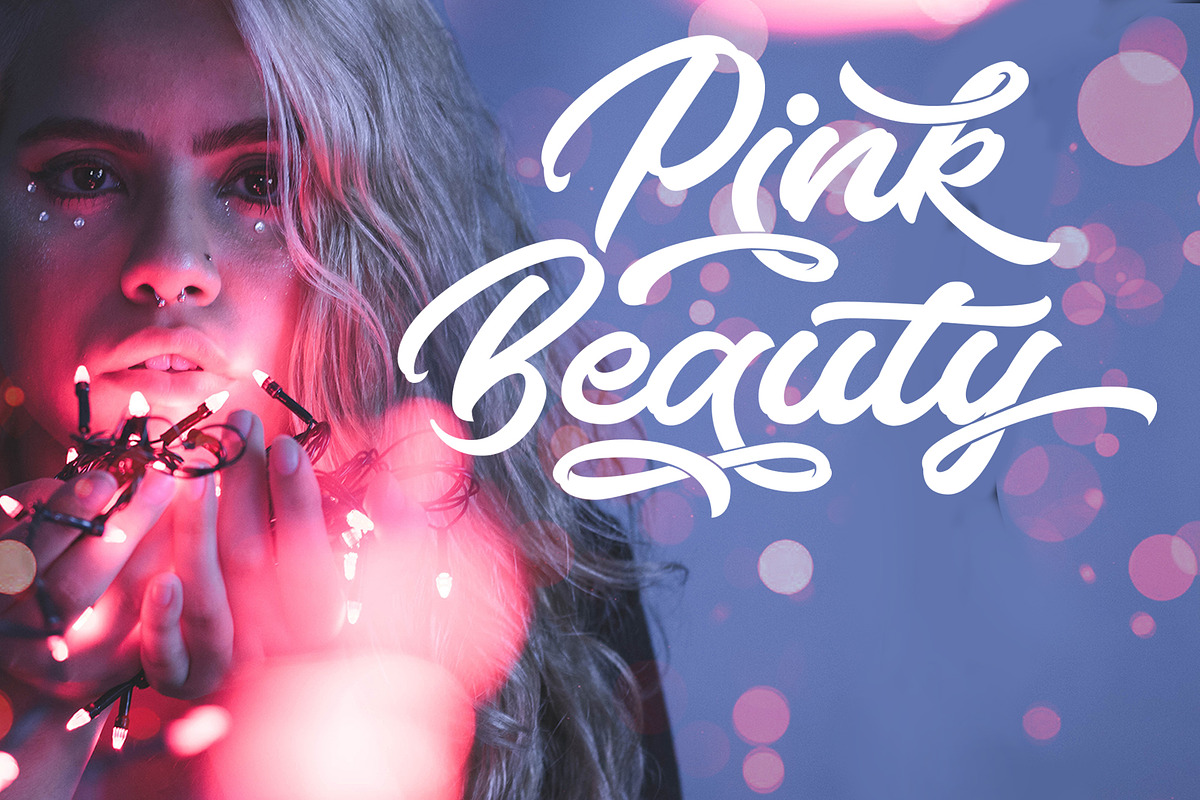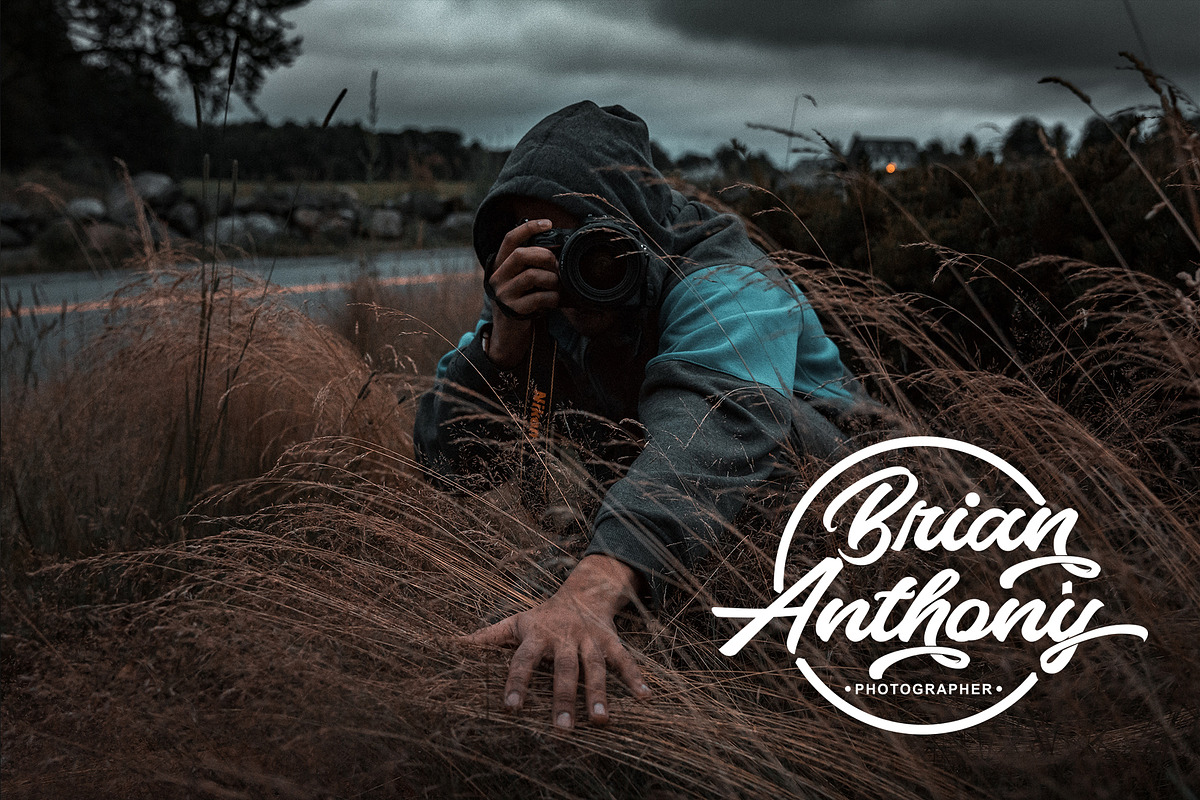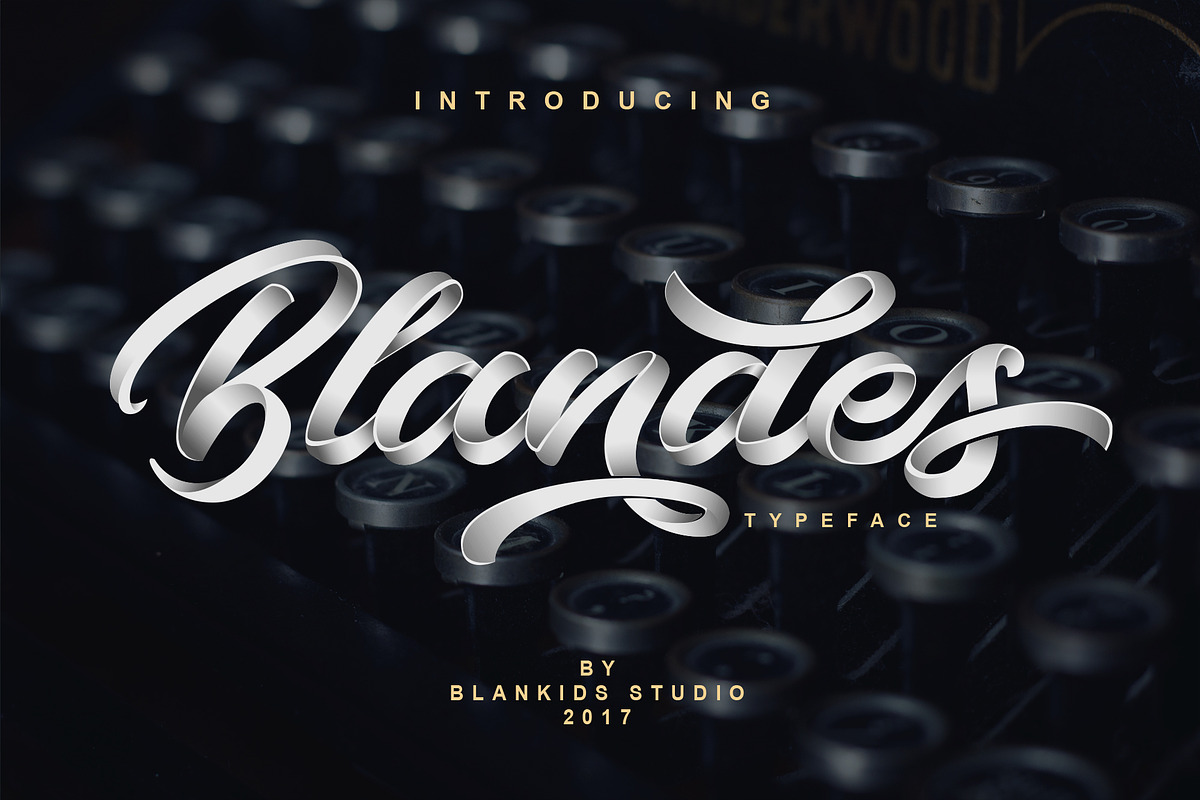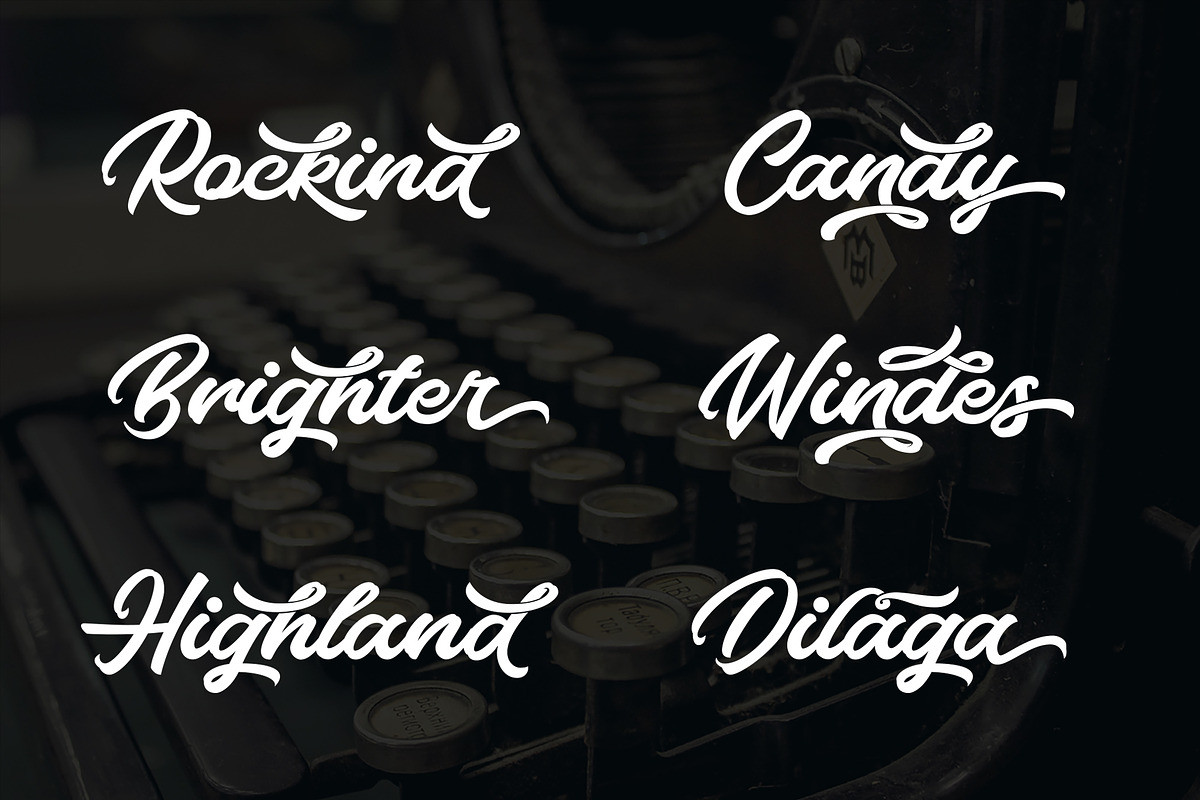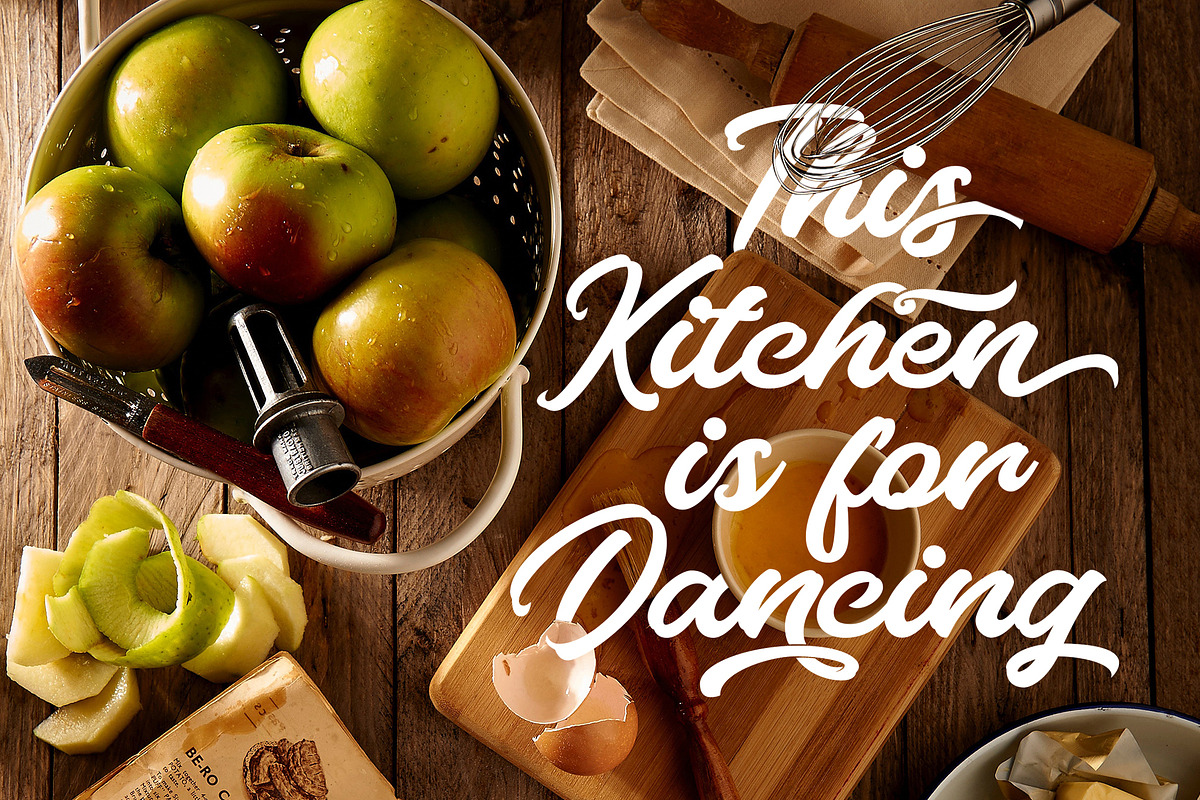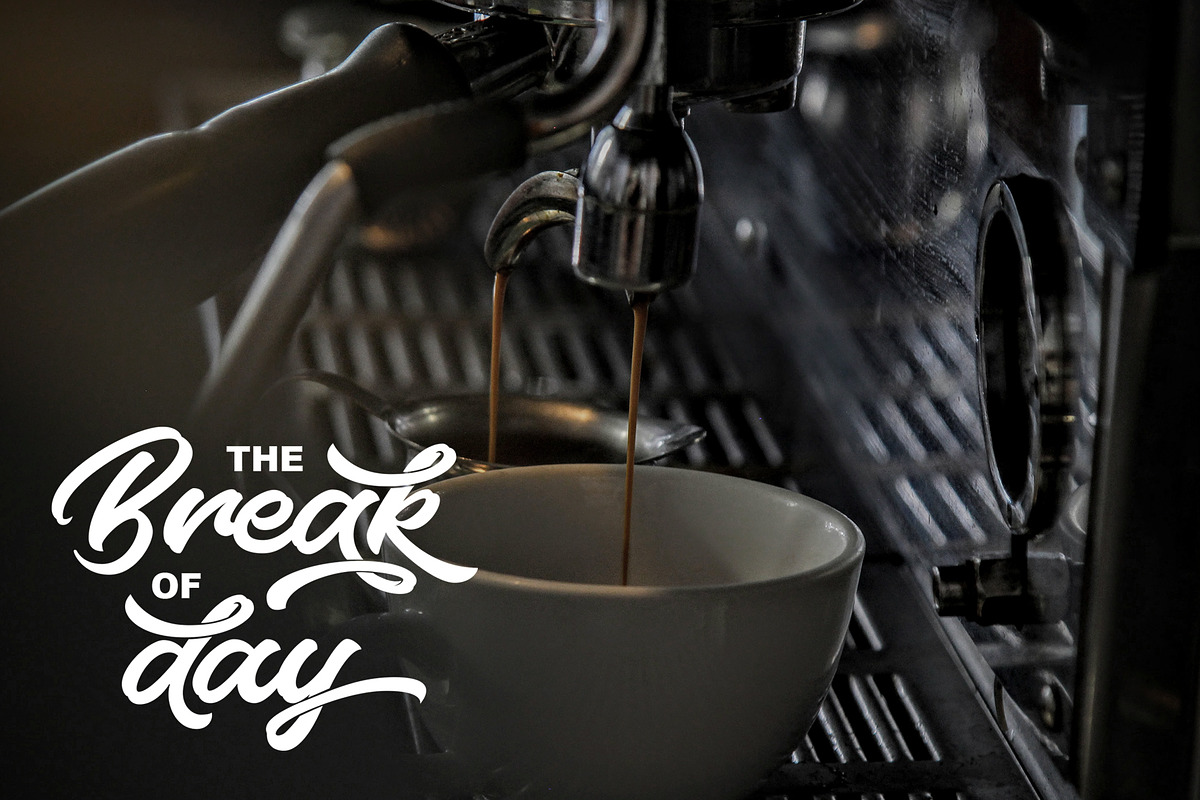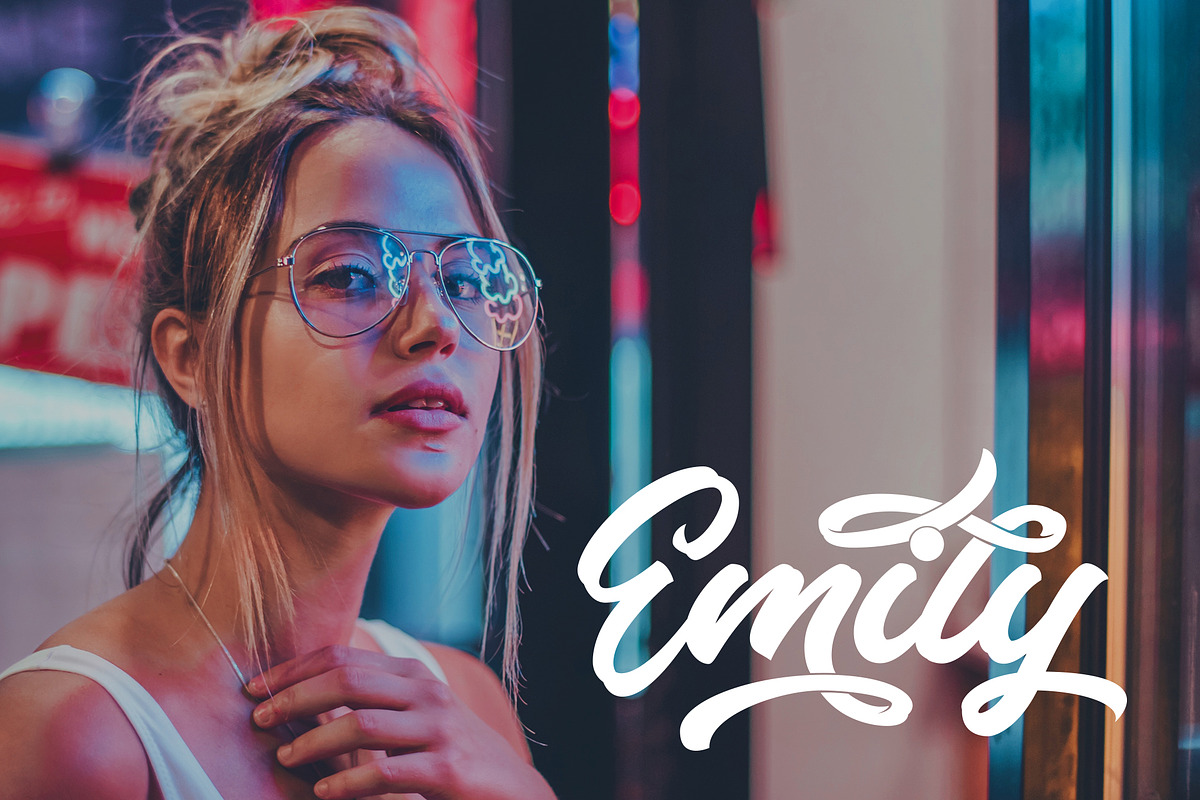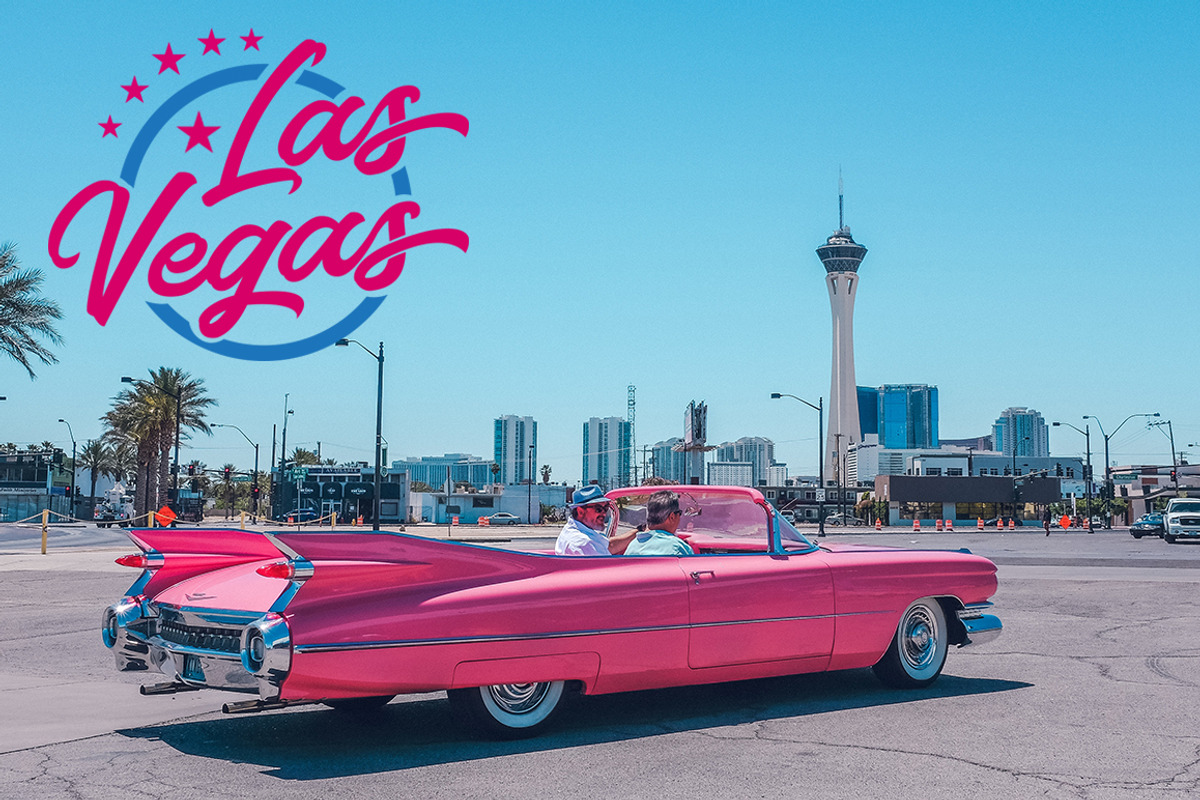
Blandes Typeface
Blandes Typeface my original hand lettering into typeface.
Blandes Typeface is inspired by the handwriting style with the brush pen, I tried to create a clean style with the anatomy of the original hand lettering from the paper after that I make into vector and I made it into the typeface, i create Blandes Typeface with some different character alternatives I mean that when we want to create a logotype or for typography we just use this typeface very easily and quickly like a handleting style.
Blendes Typeface have 331 Glyphs and many alternative character so you can mix and match like a you want, Blendes Typeface include 18 Mutilingual Support (Afrikaans Albanian Catalan Czech Dutch English Estonian Finnish German Hungarian Italian Polish Portugese Slovak Slovenian Spanisch Swedish Zulu)
Blandes Typeface by Blankids Studio fits naturally into Branding, posters, packaging, typography.